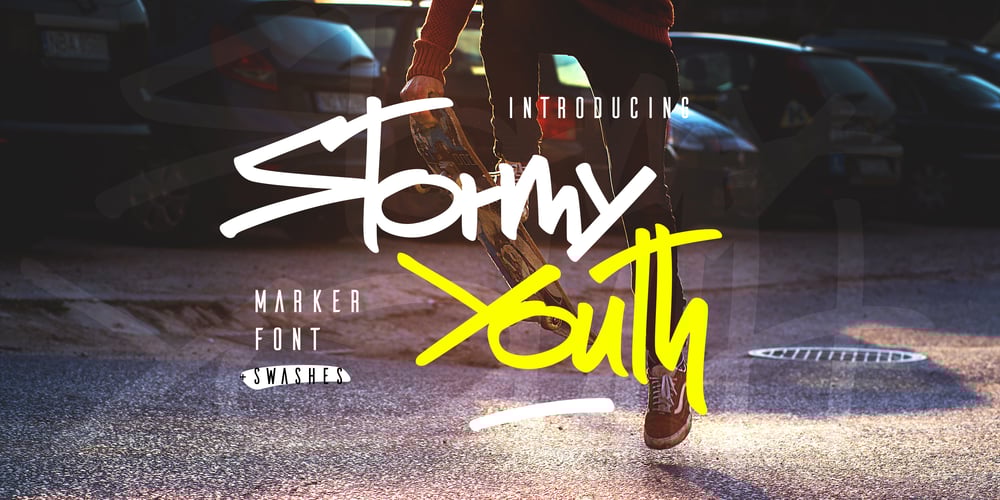
Stormy Youth Font Family was designed by Vladimir Tsagolov and published by LomoHiber. Stormy Youth contains 2 styles and family package options. I’m happy to present my Stormy Youth font.It has been drawn with a marker pen and a swift hand. Stormy Youth has intentionally overlapping letters to remind street style and give an underground look. Initially, I planned to make it as only uppercase, so feel free to use it this way. Stormy Youth is great for aggressive/rebel design style for teenagers. Stormy Youth Features: Can be used as uppercase font Set of alternates and ligatures for most common double letters Carefully tuned kerning (preview above doesn’t always show it correctly for some reason) Swashes Wide Latin language support If you have some issues or questions, please let me know: lhfonts@gmail.comHope you’ll enjoy using Stormy Youth!You may also like my new font fracaso